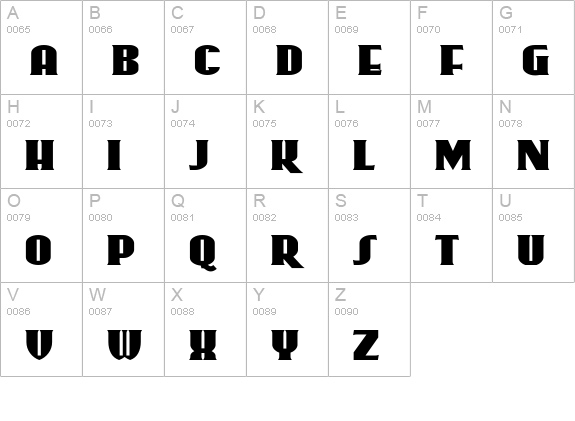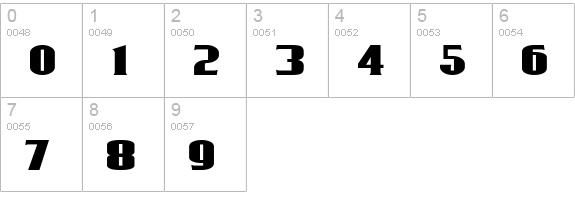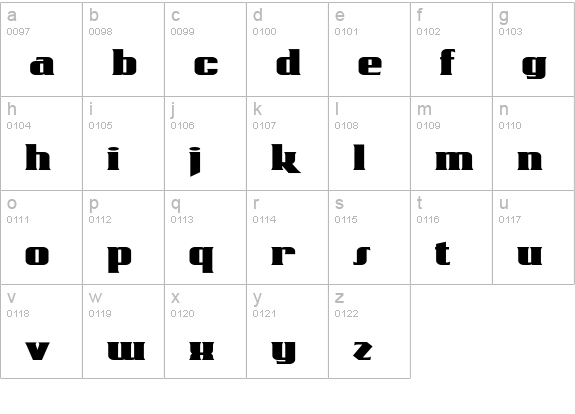
Introducing RollerCoaster font, a whimsical and playful typeface that will add a thrilling twist to your design projects! This font is perfect for capturing the excitement and exhilaration of a roller coaster ride with its dynamic curves and fun, bouncy letterforms. RollerCoaster font is sure to inject a sense of adventure into any design, making it ideal for posters, invitations, branding, and more. The best part? RollerCoaster font is completely free to download at FontsMarket.com! So why wait? Add a touch of excitement to your designs today with RollerCoaster font.